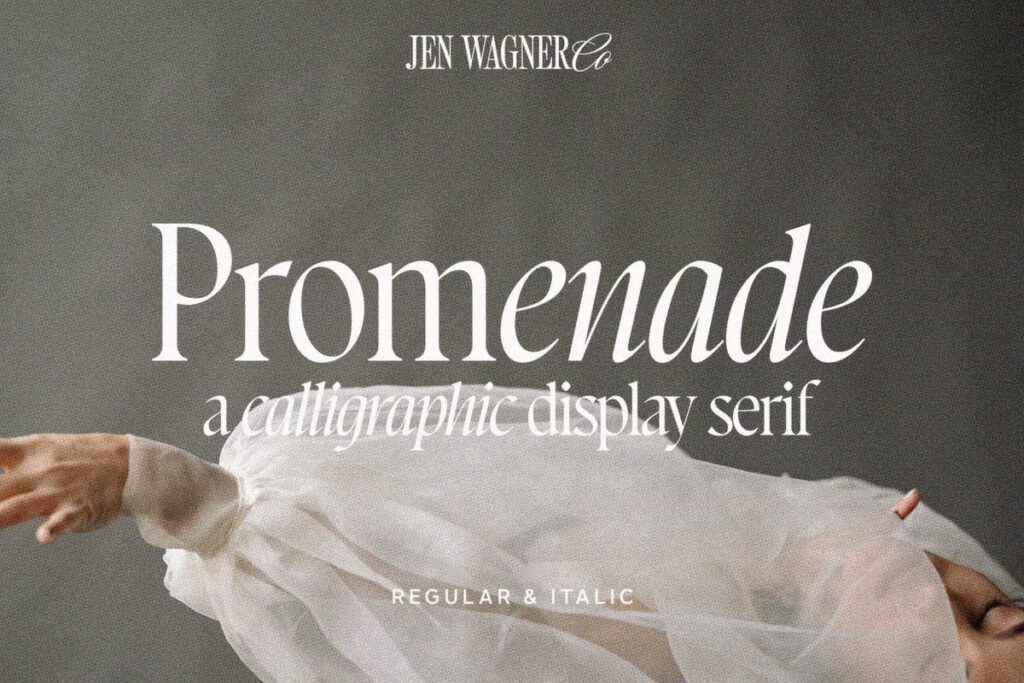
Promenade | A Calligraphic Serif – Elegance Meets Edge
Introducing Promenade, a beautifully crafted calligraphic serif font that brings sophistication and a touch of attitude to any design. Inspired by hand-lettering with a flat nib pen, Promenade combines traditional elegance with modern flair, making it the perfect choice for high-end branding, logo designs, invitations, and more. Its flowing curves and refined details create a seamless balance between beauty and boldness.
Why Choose Promenade?
Dual Style: Comes in both Regular and Italic versions, giving your designs flexibility and depth.
Versatile Use: Ideal for logos, editorial design, and digital projects. The combination of regular and italic can create a stunning visual hierarchy in your designs.
Unique Story: With letterforms that are both delicate and strong, Promenade was designed to stand out while maintaining a refined aesthetic.
Key Features:
Full Serif Font Family: Includes both uppercase and lowercase characters, punctuation, and multilingual support.
Perfect Pairings: Works beautifully with other sans-serif fonts like Essential Sans, making it versatile for various design projects.
Elegant Flow: Designed for balance and clean readability, Promenade is spaced for clarity but can easily be tightened to achieve a sleek display look.
Add a timeless yet edgy vibe to your next project with Promenade, a font that’s not just elegant but also full of personality.